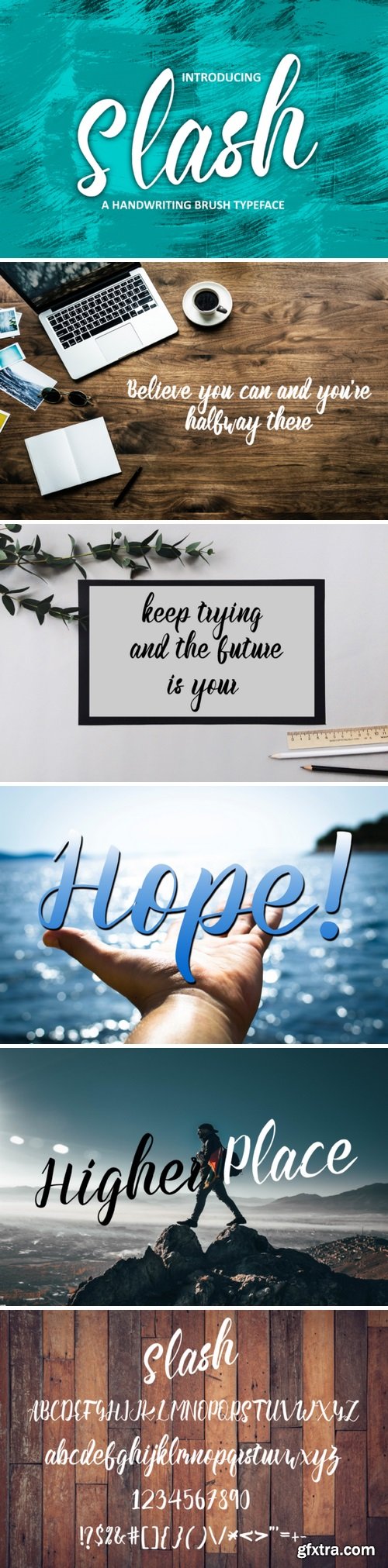
The Slash is a fun handwritten font with a fresh and modern style. It’s suitable for nameplates, logos, branding, greeting cards, posters, book covers, and much more!